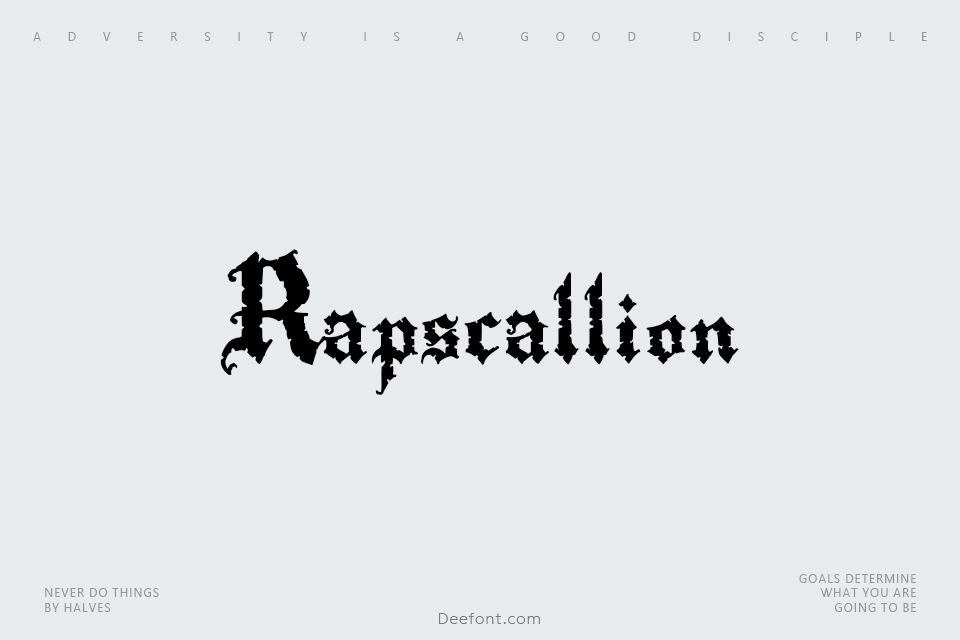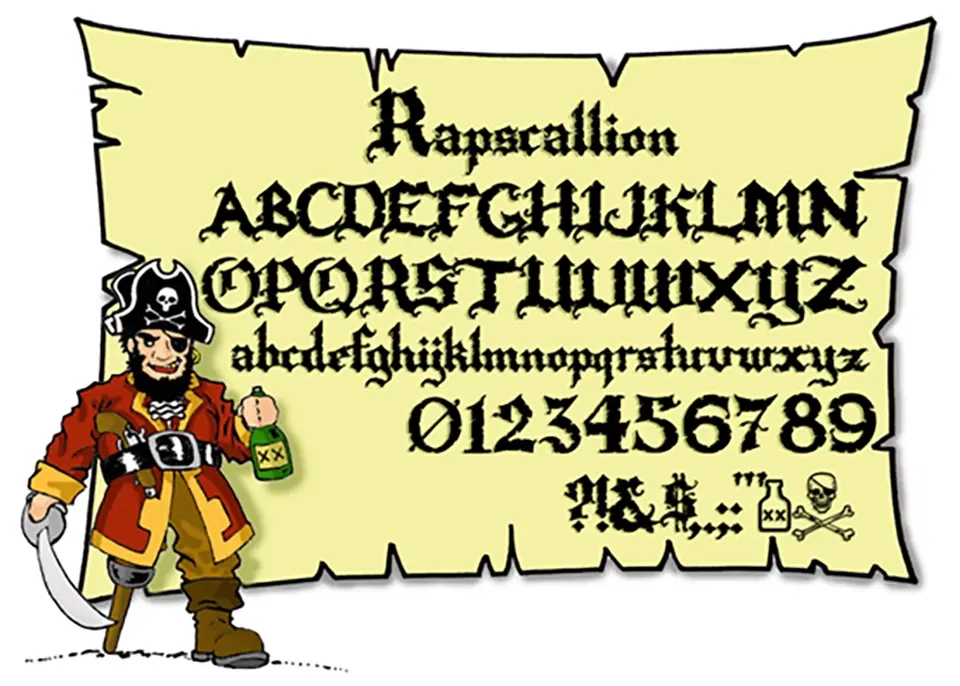
Rapscallion Font
Rapscallion is a distinctive blackletter typeface that combines medieval charm with a pirate-inspired aesthetic. This free font features a bold, distressed design with intricate gothic details, making it ideal for creative projects requiring historical authenticity and dramatic visual impact. Developed by Ryan Splint, Rapscallion displays best at 48-point sizes and above, delivering clean prints and authentic medieval typography for posters, headlines, and decorative applications.